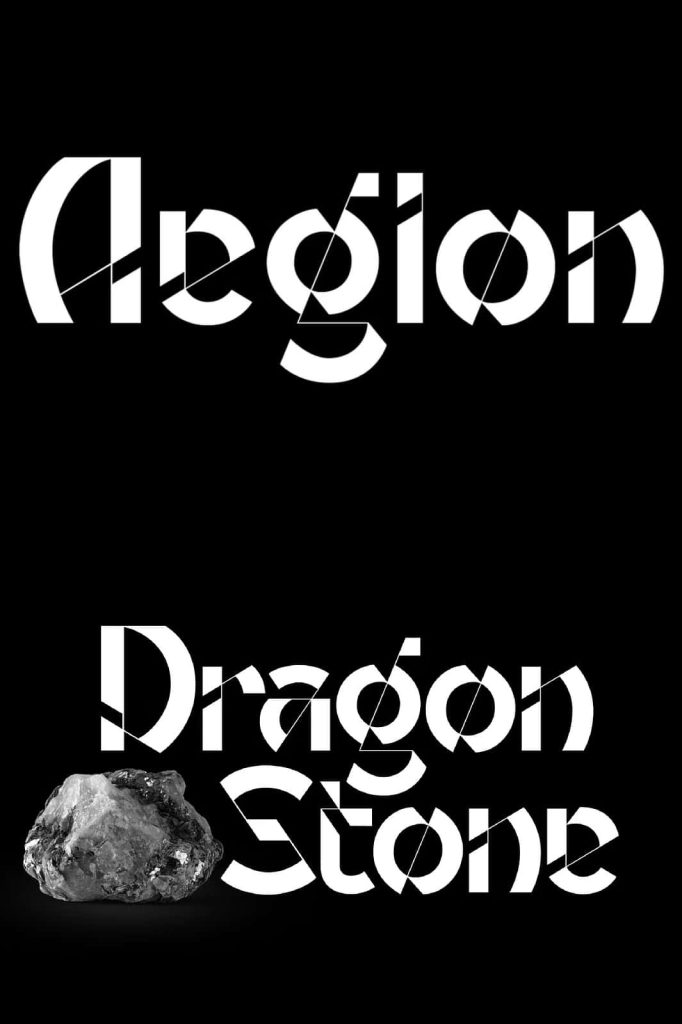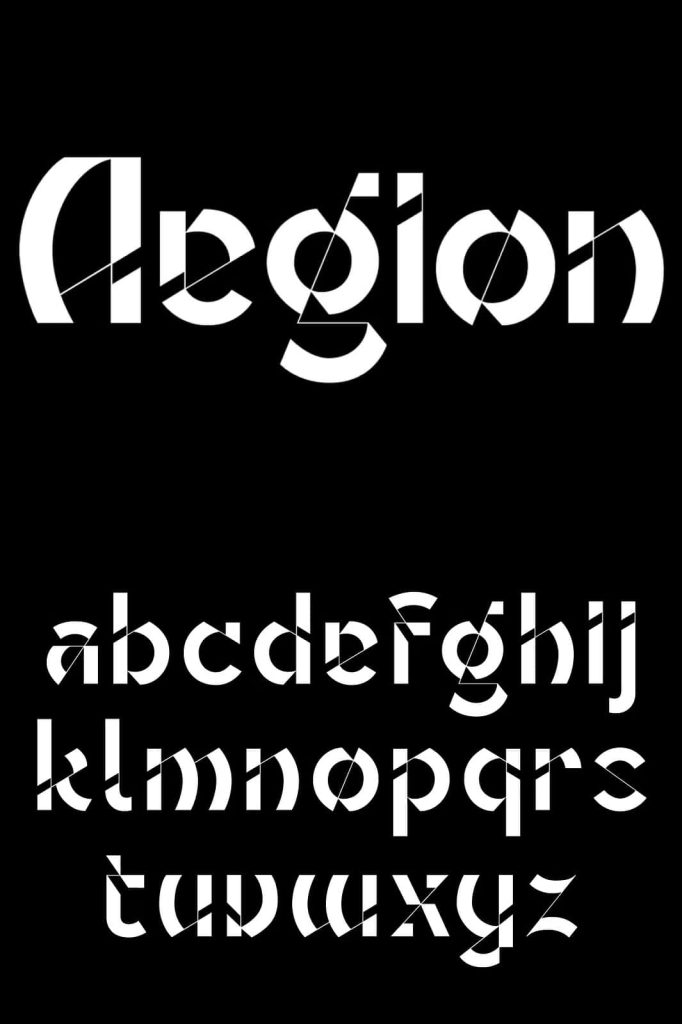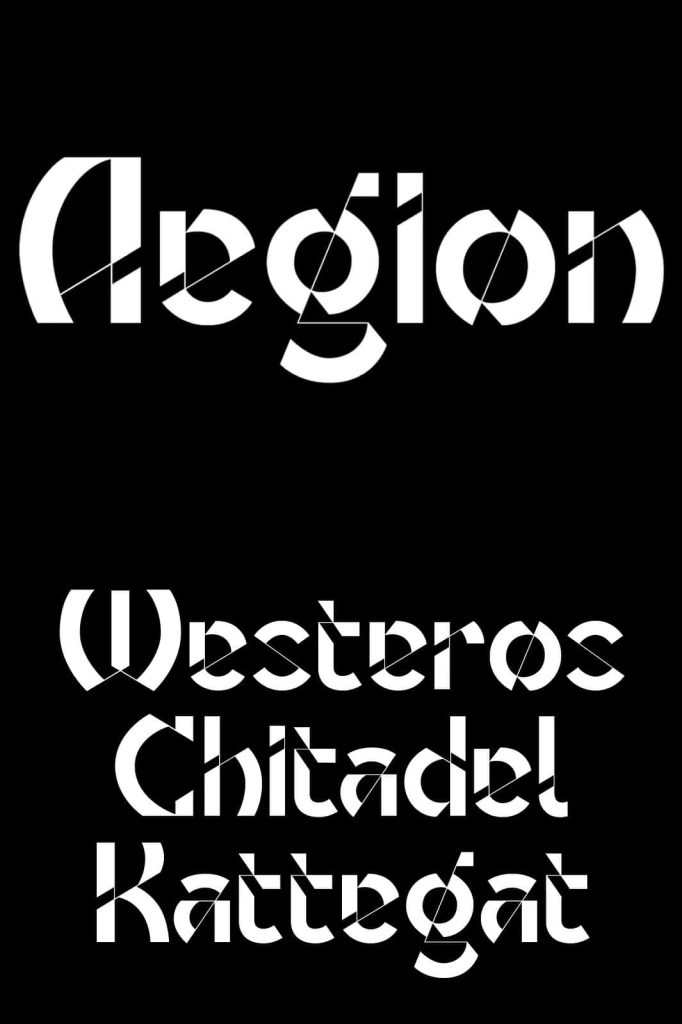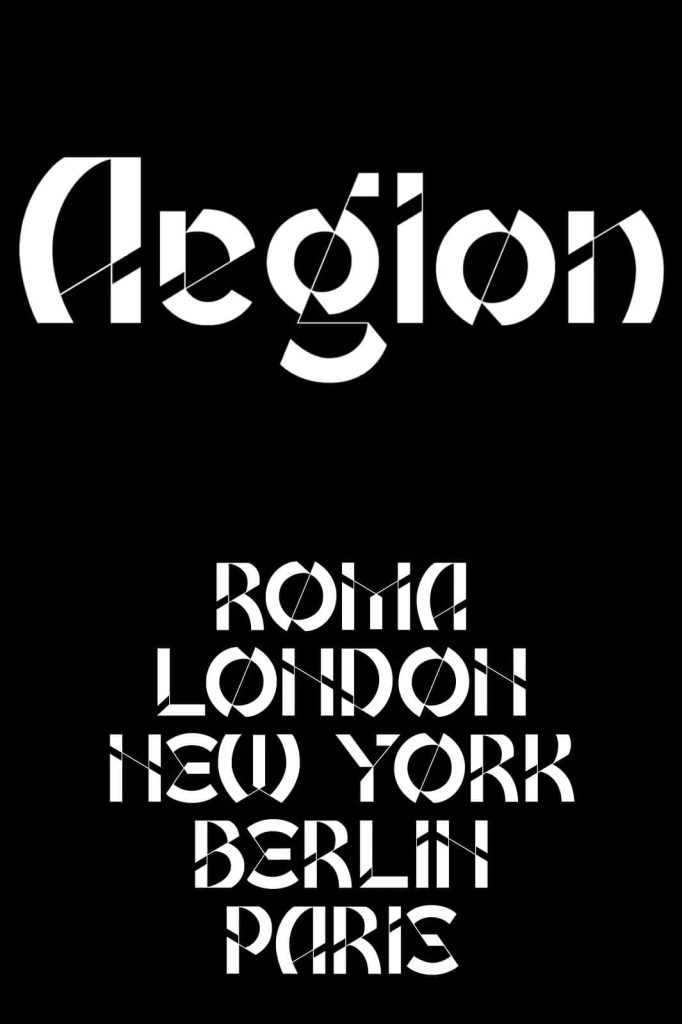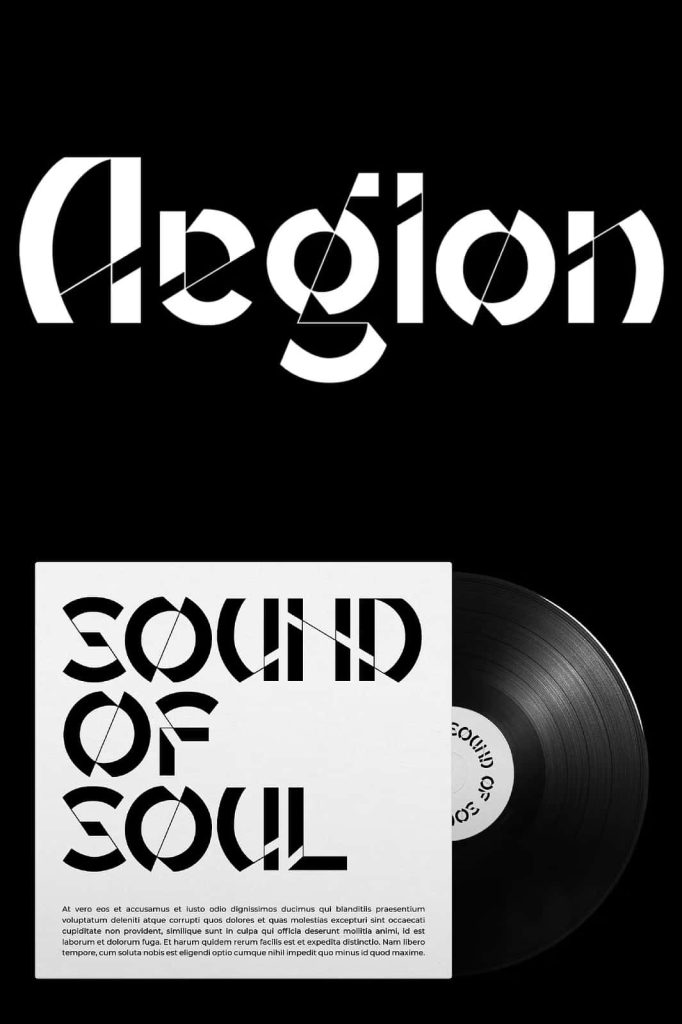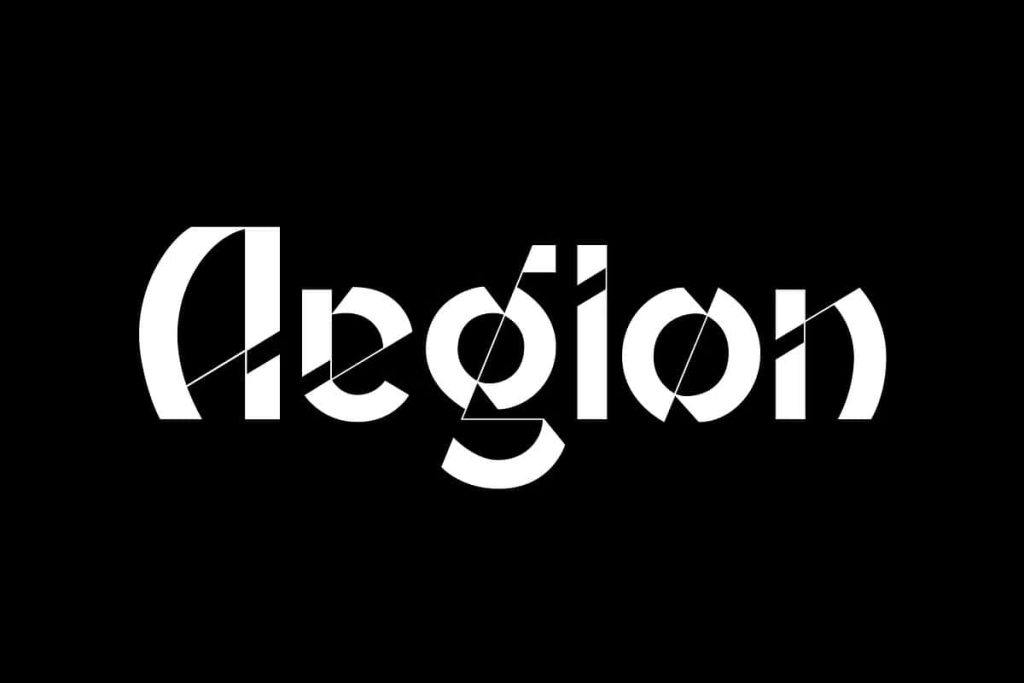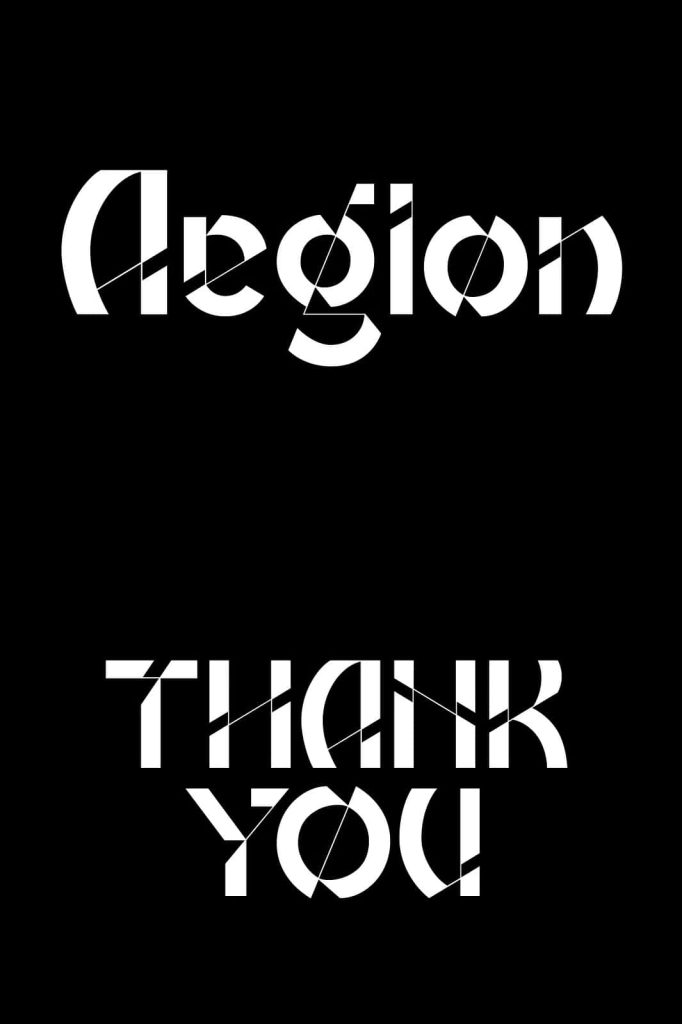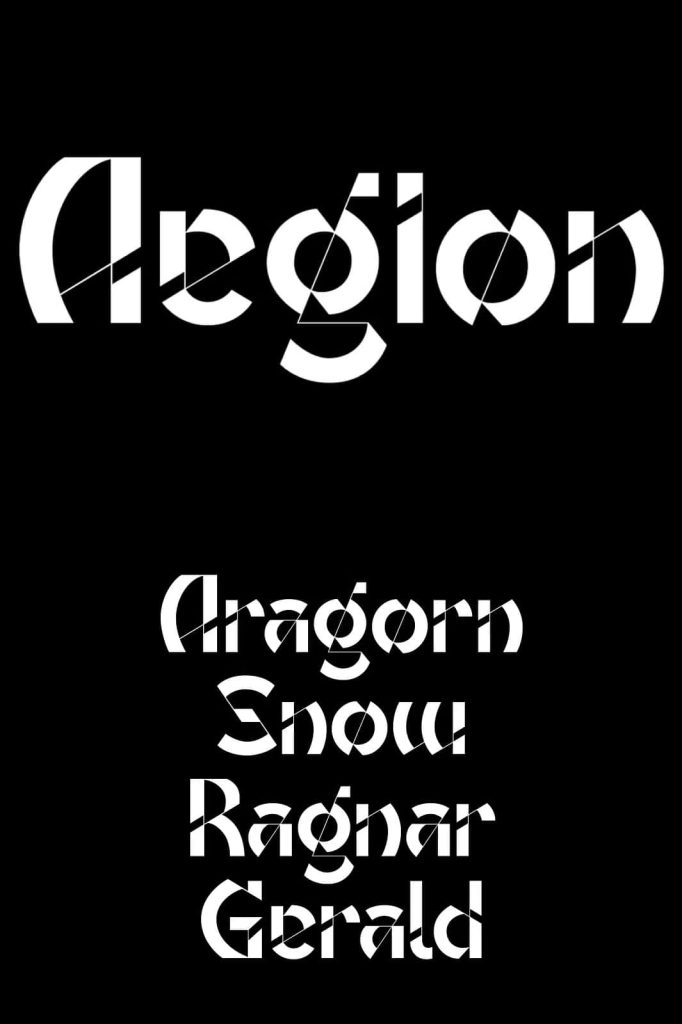
Aegion is a striking display typeface that blends the historical elegance of blackletter styles with modern sensibilities. Its intricate details and high contrast create a bold and dramatic visual impact, making it ideal for logos, branding, headlines, and posters.